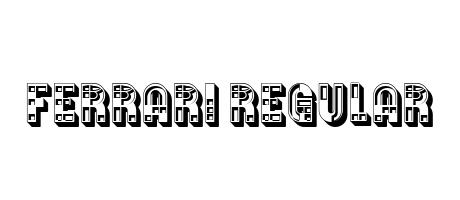
Ferrari
Ferrari Regular is a bold, display typeface. Its chunky, blocky letters possess a slightly three-dimensional quality, giving a sense of depth and weight. A subtle pattern adds texture, hinting at a retro or perhaps even slightly industrial aesthetic. The overall effect is strong and impactful, ideal for headlines or short text requiring attention.